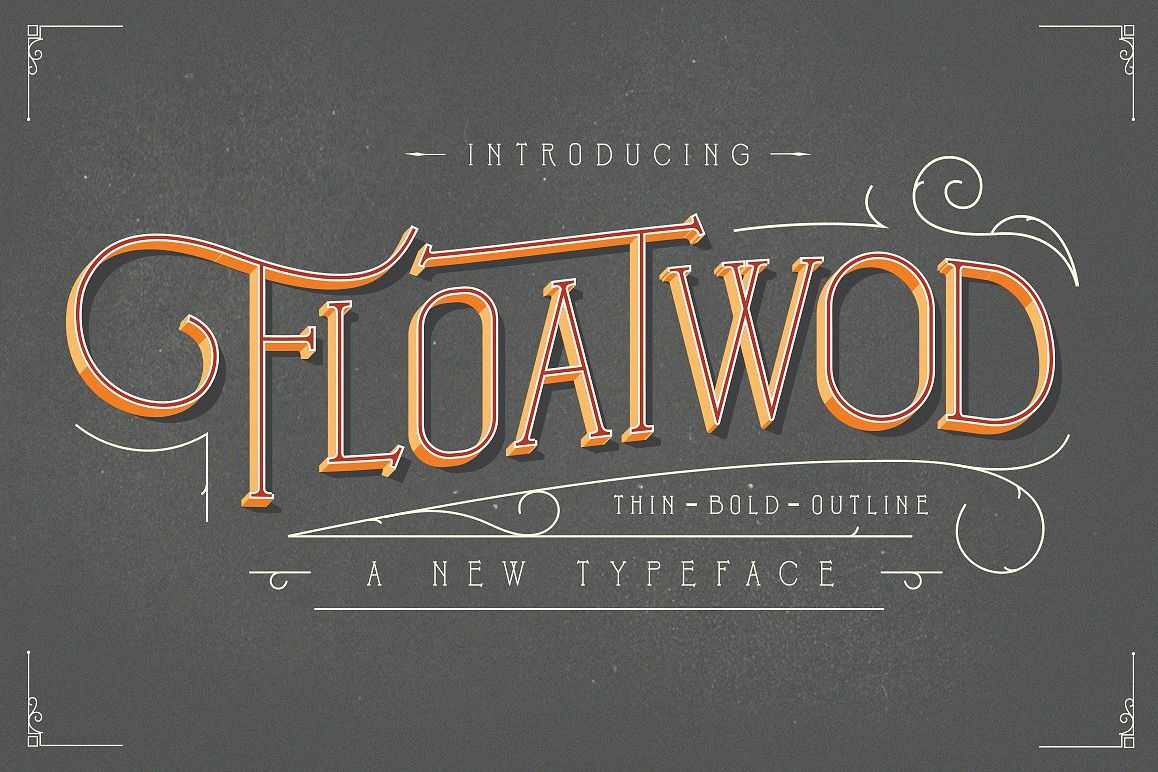
Floatwod
Bloomxxvi, proudly presents Floatwod. our latest New Typeface. Floatwod comes with uppercase, lowercase, numerals, punctuations and so many variations on each characters include opentype alternates, common ligatures to customise your designs and that will make the Typeface more real gorgeous and fun. Floatwod is very best choice fonts for : Wedding Invitation, quotes, Posters, Apparel design, Logos, Print Ads, Digital Ads, Promotion Product etc.What You Get
• Character set A-Z with special uppercase letters
• Stylistic Alternates And Ligatures